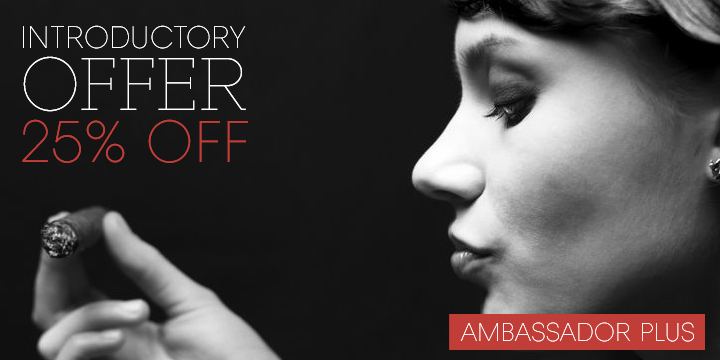
Ambassador Plus Font
Ambassador Plus
Ambassador Plus is a font created and published by Juraj Chrastina. It is perfect to use this elegant typeface for magazines, cosmetics packaging, advertising etc.